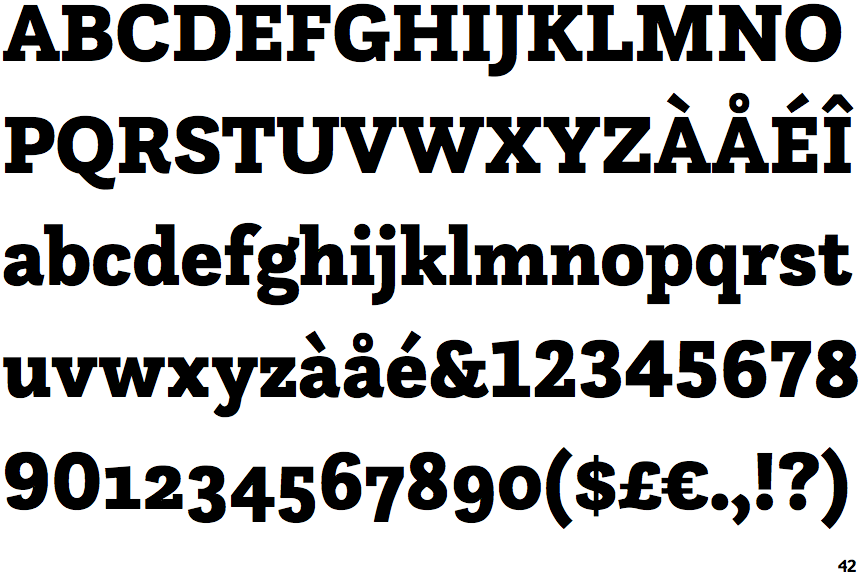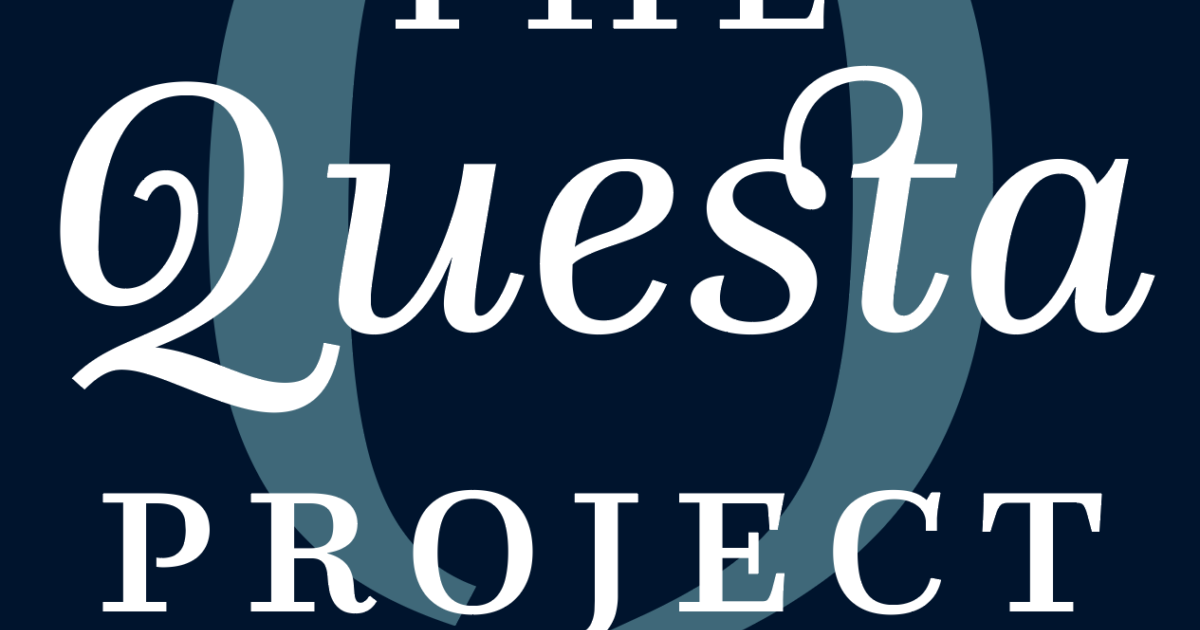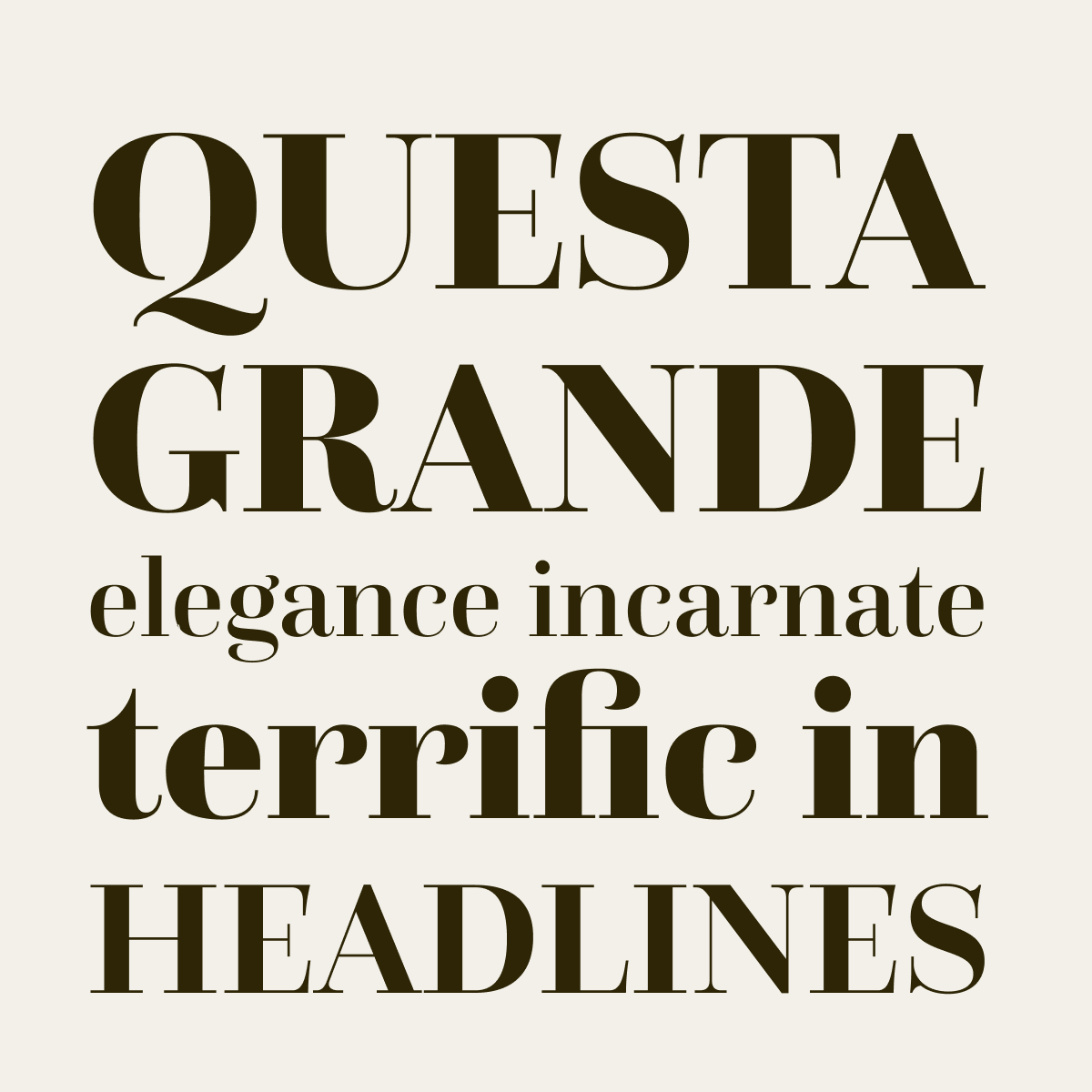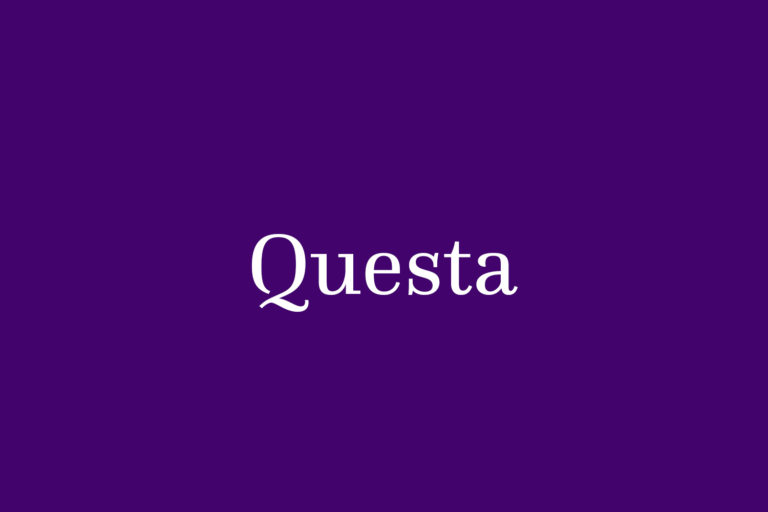
The Questa Project Free Font . The questa project font families available to rent on fontstand for a fraction of their retail price. The questa project is an independent type foundry and a collaborative type design project by martin majoor and jos buivenga. Explore questa designed by jos buivenga, martin majoor at adobe fonts. Even if that means we send you elsewhere to get. A serif typeface with 10 styles, available from adobe fonts for sync and. The inclusion of small caps, four sets of figures, ligatures and extended language support makes questa a real workhorse typeface. To read more about the design features and delightful details of the questa family,. Four versions of questa have been released,. Download and install the questa free font family by the questa project as well.
The questa project font families available to rent on fontstand for a fraction of their retail price. The inclusion of small caps, four sets of figures, ligatures and extended language support makes questa a real workhorse typeface. Explore questa designed by jos buivenga, martin majoor at adobe fonts. To read more about the design features and delightful details of the questa family,. Even if that means we send you elsewhere to get. A serif typeface with 10 styles, available from adobe fonts for sync and. The questa project is an independent type foundry and a collaborative type design project by martin majoor and jos buivenga. Four versions of questa have been released,. Download and install the questa free font family by the questa project as well.
The Questa Project Free Font A serif typeface with 10 styles, available from adobe fonts for sync and. A serif typeface with 10 styles, available from adobe fonts for sync and. Explore questa designed by jos buivenga, martin majoor at adobe fonts. Even if that means we send you elsewhere to get. Download and install the questa free font family by the questa project as well. To read more about the design features and delightful details of the questa family,. The inclusion of small caps, four sets of figures, ligatures and extended language support makes questa a real workhorse typeface. The questa project is an independent type foundry and a collaborative type design project by martin majoor and jos buivenga. The questa project font families available to rent on fontstand for a fraction of their retail price. Four versions of questa have been released,.
Questa Font Free Download The Questa Project Free Font Download and install the questa free font family by the questa project as well. A serif typeface with 10 styles, available from adobe fonts for sync and. The questa project font families available to rent on fontstand for a fraction of their retail price. Explore questa designed by jos buivenga, martin majoor at adobe fonts. The inclusion of small caps,. The Questa Project Free Font.
Questa Grande Fonts Shmonts The Questa Project Free Font To read more about the design features and delightful details of the questa family,. Explore questa designed by jos buivenga, martin majoor at adobe fonts. A serif typeface with 10 styles, available from adobe fonts for sync and. The questa project font families available to rent on fontstand for a fraction of their retail price. Download and install the questa. The Questa Project Free Font.
Fontspring Questa Fonts by The Questa Project Free Font Explore questa designed by jos buivenga, martin majoor at adobe fonts. The inclusion of small caps, four sets of figures, ligatures and extended language support makes questa a real workhorse typeface. Even if that means we send you elsewhere to get. To read more about the design features and delightful details of the questa family,. A serif typeface with 10. The Questa Project Free Font.